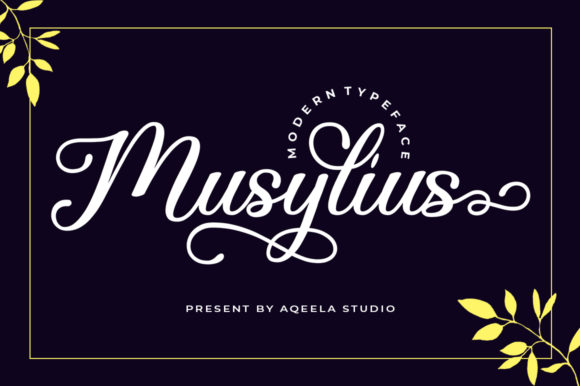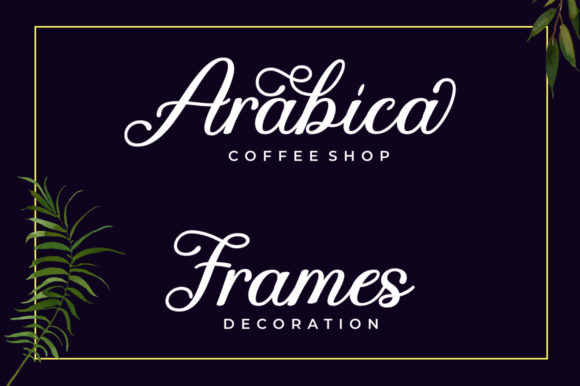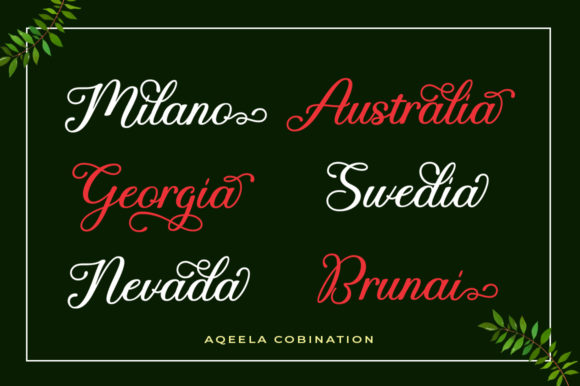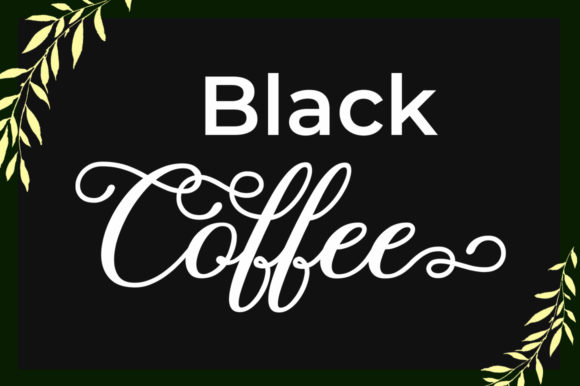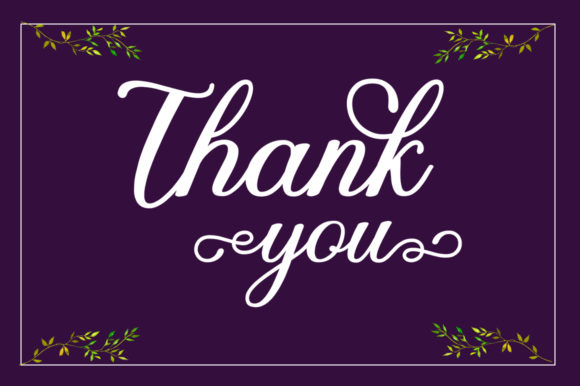
Musylius Font
About Musylius Font
The Musylius is a modern calligraphy font. Its characters are dancing along the baseline and have an elegant touch.
It’s perfect for logos, wedding invitations, headings, t-shirts, letterheads, signage, labels, news, posters, badges, and much more!